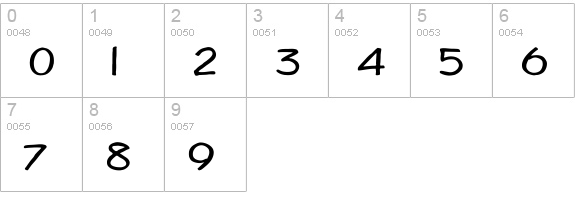
Diego1 Wd font is a stylish and modern typeface that exudes elegance and sophistication. With its sleek design and clean lines, this font is perfect for a wide range of design projects, from branding to editorial design. The unique characteristics of Diego1 Wd font make it stand out from the crowd and give your work a professional and polished look. The best part is that Diego1 Wd font is completely free to download at FontsMarket.com. Whether you're a seasoned designer looking for a fresh new font to add to your collection or a beginner looking to elevate your projects, Diego1 Wd font is the perfect choice. Don't miss out on this fantastic opportunity to enhance your designs with this beautiful and versatile font. Download Diego1 Wd font today and take your projects to the next level.